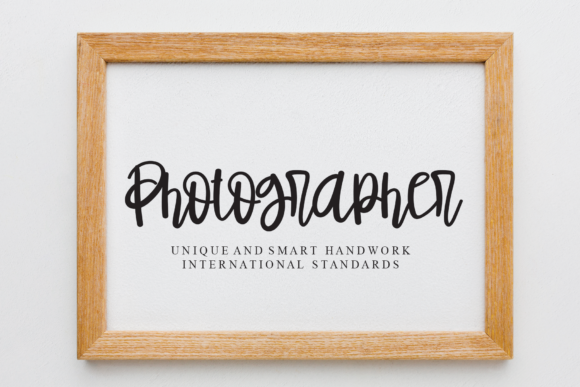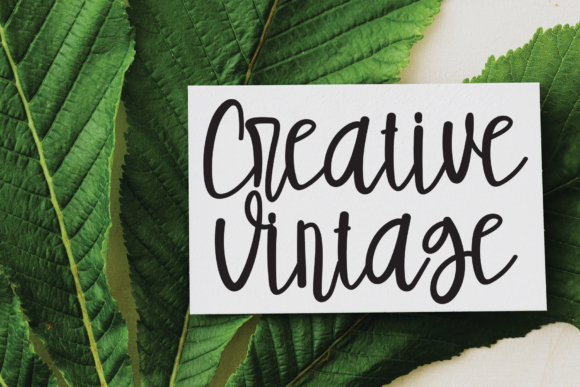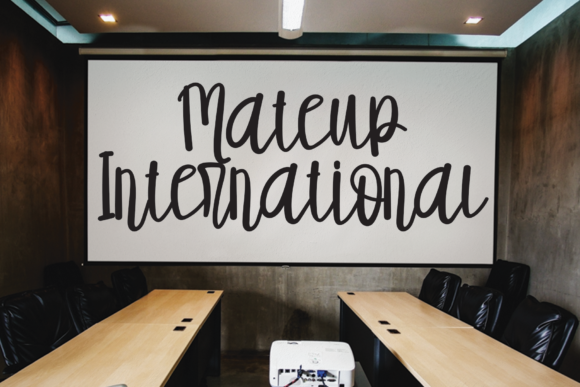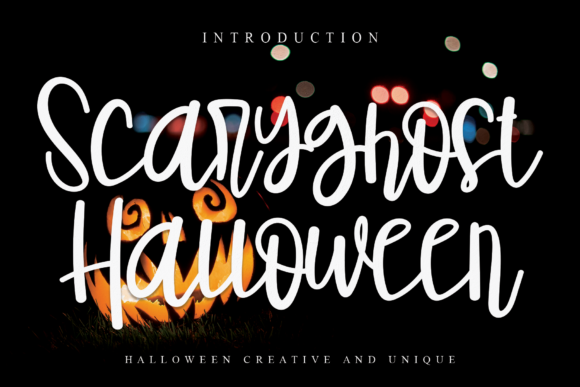
Introduction to Scaryghost Halloween Font
Scaryghost Halloween is a chic, refined script font that emanates sophistication and elegance.
Its stylish alternates and ligatures make this font the perfect match for any project .